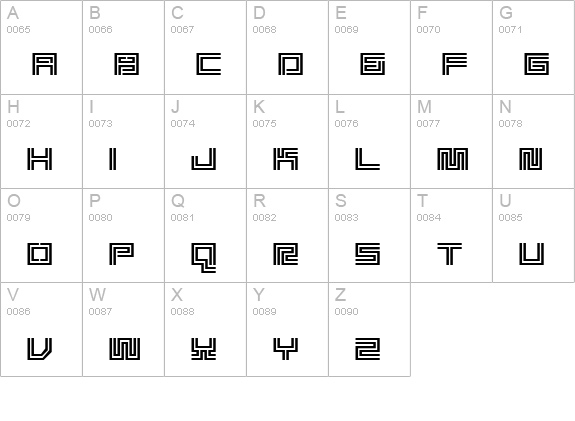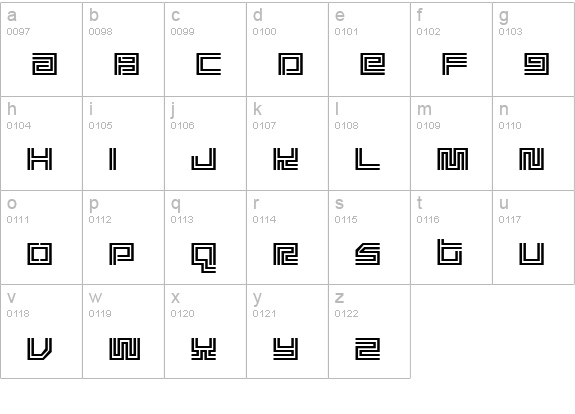
Supreme Font Details
The Supreme font is a sleek and modern typeface that exudes elegance and sophistication. With its clean lines and bold lettering, this font is perfect for making a statement in your designs. Whether you're creating a logo, poster, or branding materials, the Supreme font will give your project a touch of class and professionalism. The best part about the Supreme font is that it is completely free to download at FontsMarket.com. This means you can access this stylish font without any cost, making it a great choice for designers on a budget. So why wait? Elevate your designs with the Supreme font today and make a lasting impression with its timeless appeal.